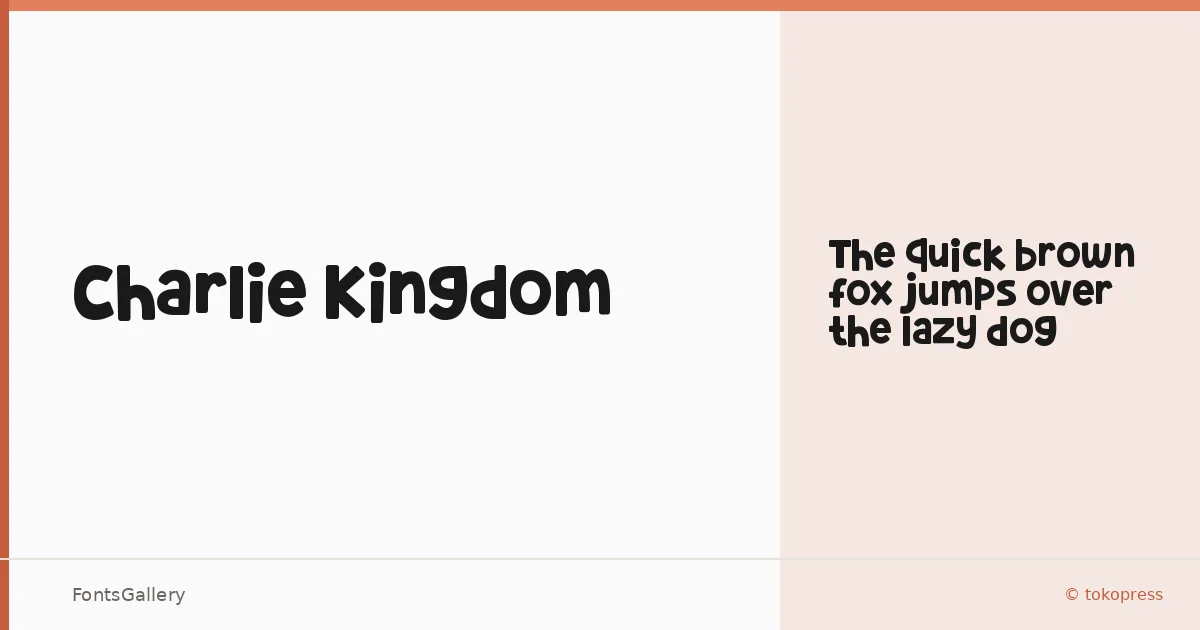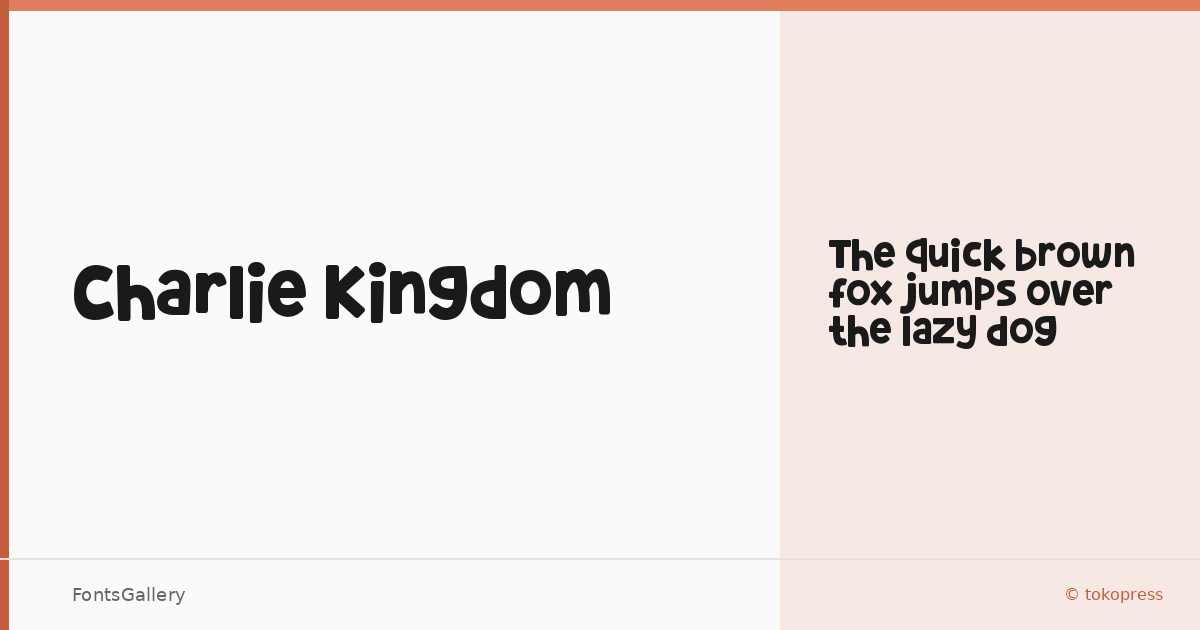
About Charlie Kingdom Font
There is something immediately theatrical about this display face — the kind of letterforms that feel like they belong on a carnival banner or a hand-lettered storefront. Charlie Kingdom is a single-weight display typeface designed by Sahirul Puguh under the tokopress foundry, released in Regular. It carries a bold, whimsical energy that announces itself without hesitation.
Sitting squarely in the display category, the design leans into playful exaggeration — thick strokes, characterful curves, and a looseness that feels hand-crafted rather than mechanical. The single Regular cut is available in both TTF and OTF formats, and while the weight is uniform, the personality varies from letter to letter in that deliberately uneven way that makes display type feel alive. It covers Latin script on a partial basis, so check your character requirements before committing to a project with extended language needs.
The face earns its keep in branding projects, children's book covers, posters, logo lockups, and t-shirt design — anywhere a bold, playful tone needs to do the heavy lifting at large sizes. For body copy or secondary text, the clean neutrality of Helvetica or Aileron provides a grounding contrast, while Aranea, Aresink, or Alexandria can bring complementary character to more layered typographic compositions.